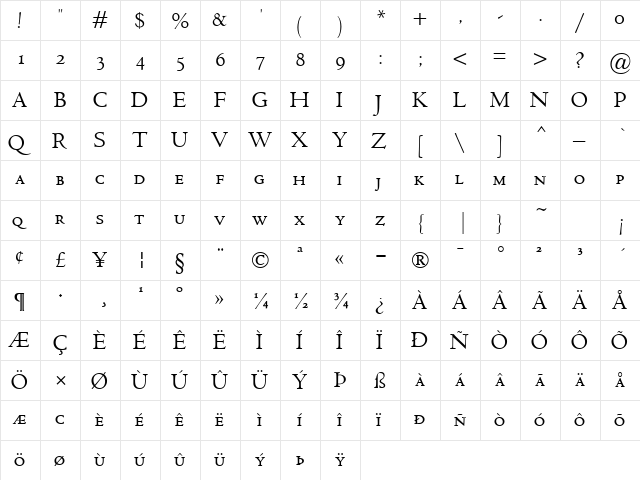
Jenson Classico SC Regular
Design Context for Jenson Classico SC Typeface
Jenson Classico SC has the warm character of retro typography — evoking diners, record sleeves, and the golden age of print advertising.
Font Pairing: Combine Jenson Classico SC with a simple slab or neutral sans — period-accurate companions reinforce the vintage feel without competing for attention.
Pro Tip: Use Jenson Classico SC for headlines and pull quotes rather than body copy — its personality is best appreciated in short, focused bursts.